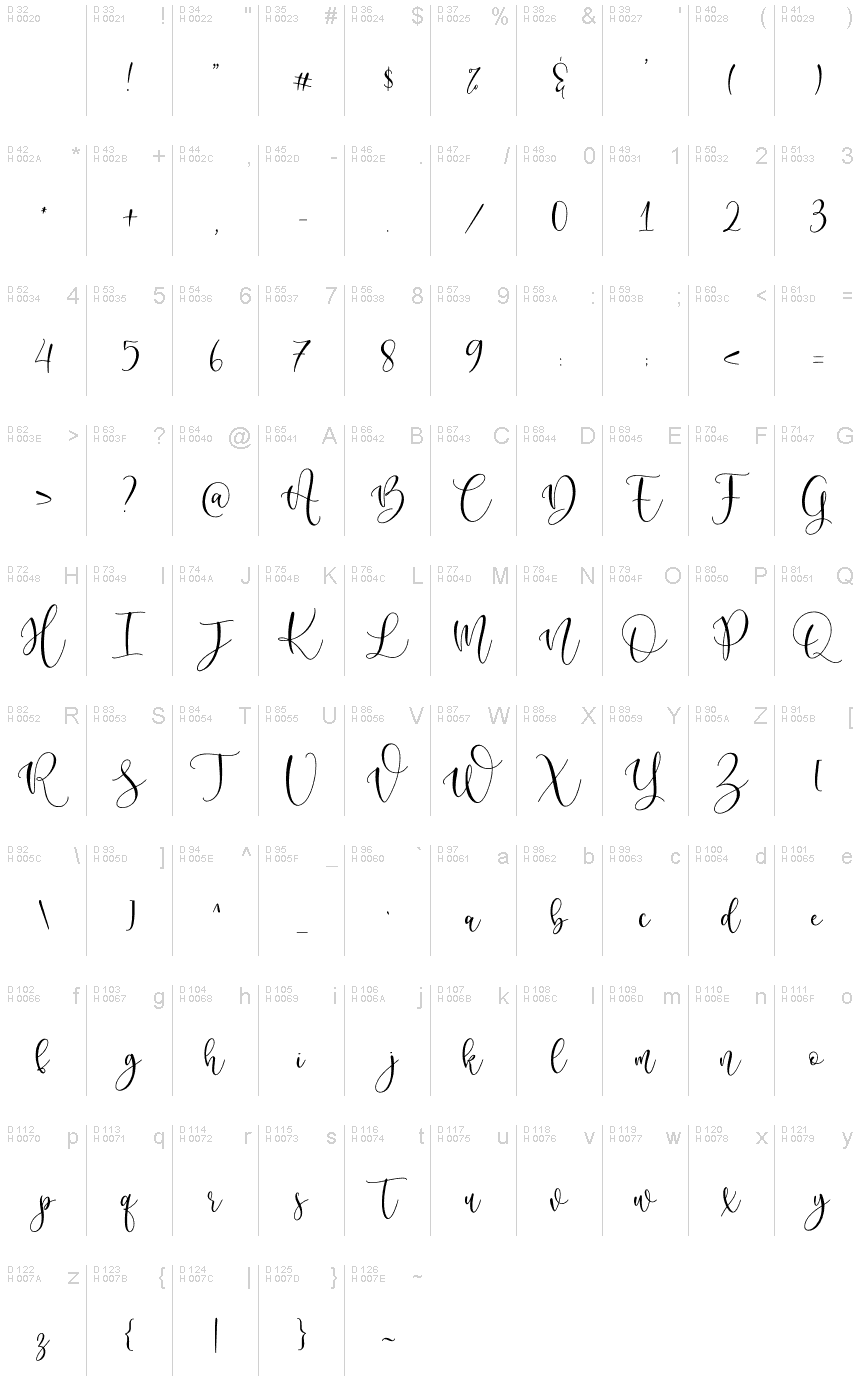
Selomitta, designed by Abo Daniel, is a romantic calligraphy font with a light touch. Its graceful curves and delicate lines make it an ideal choice for projects that emphasize beauty and romance. From wedding invitations to romantic book covers, Selomitta brings a touch of class and elegance to any project. It's also perfect for crafting logos, branding materials, and any other design that requires a beautiful script font.
Selomitta